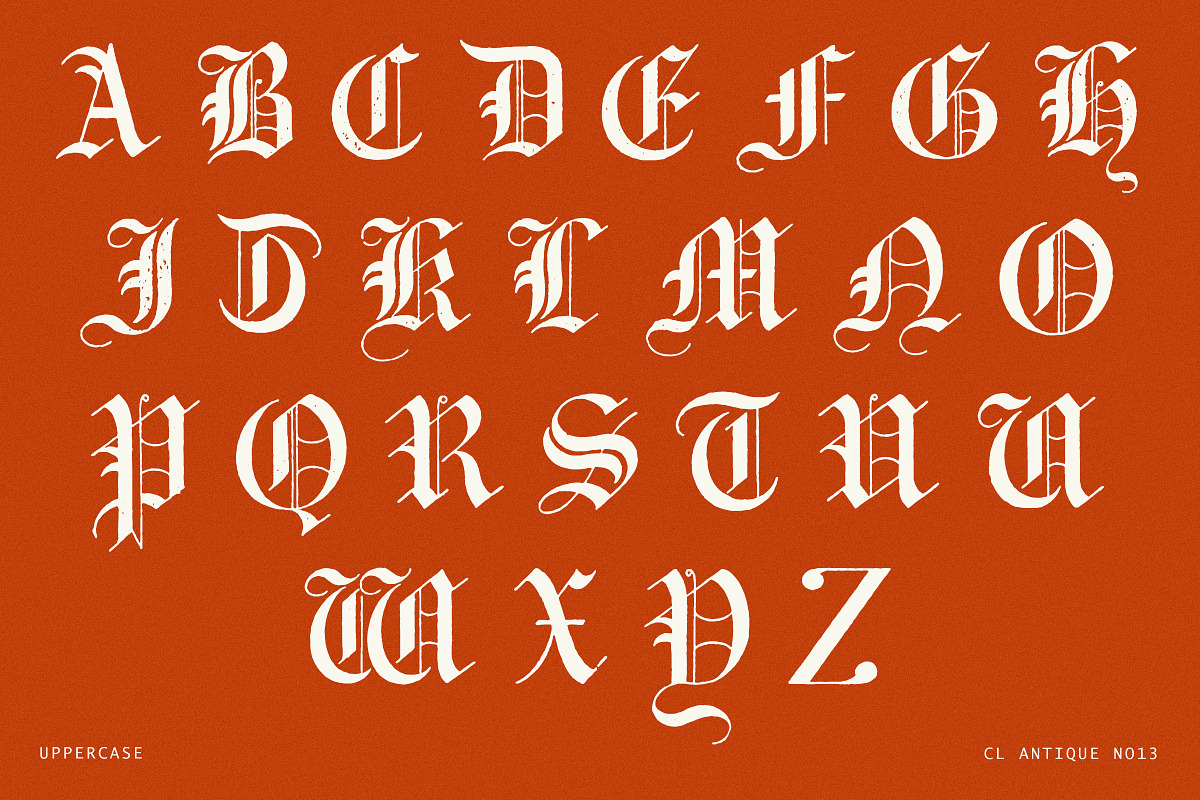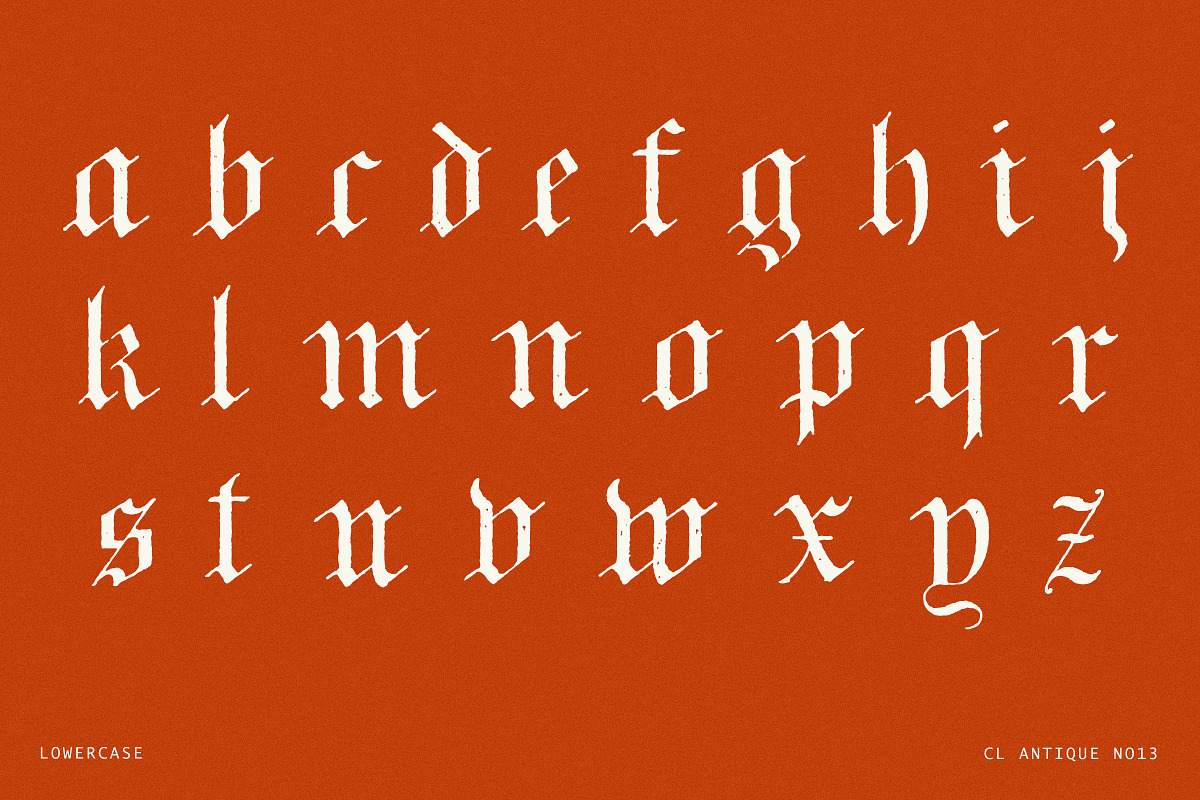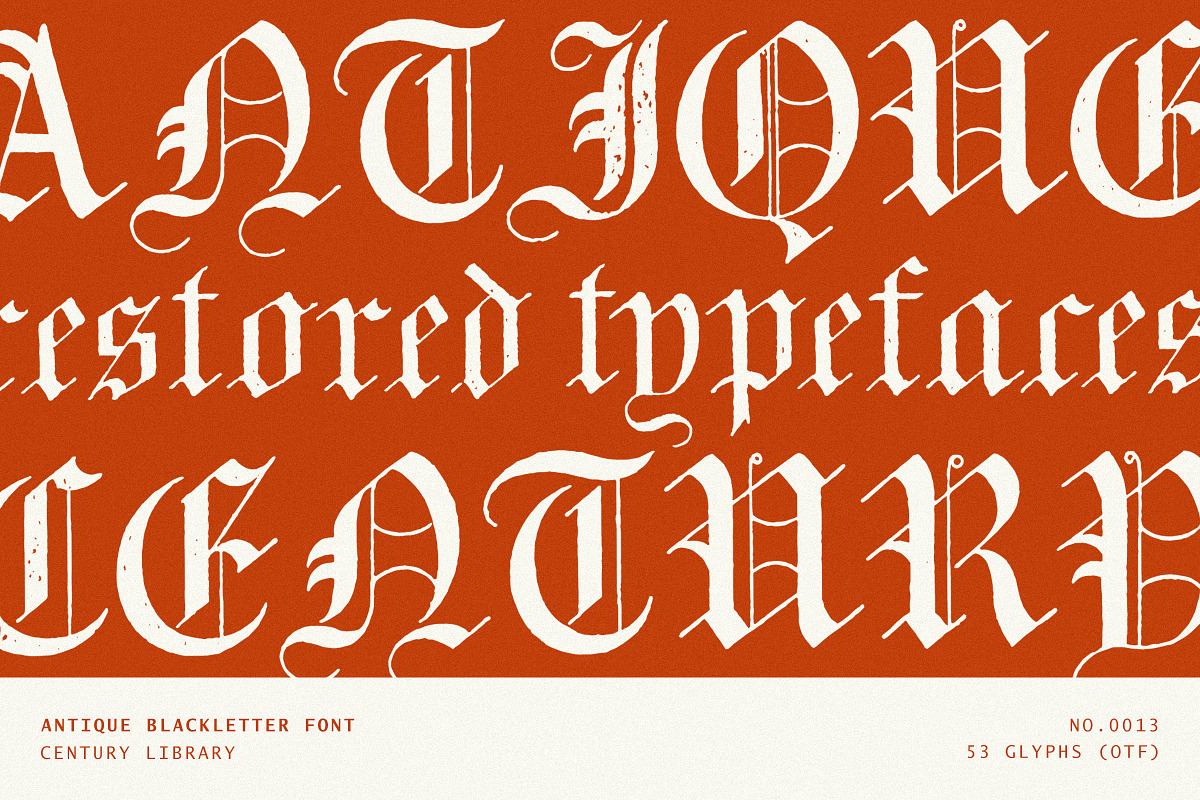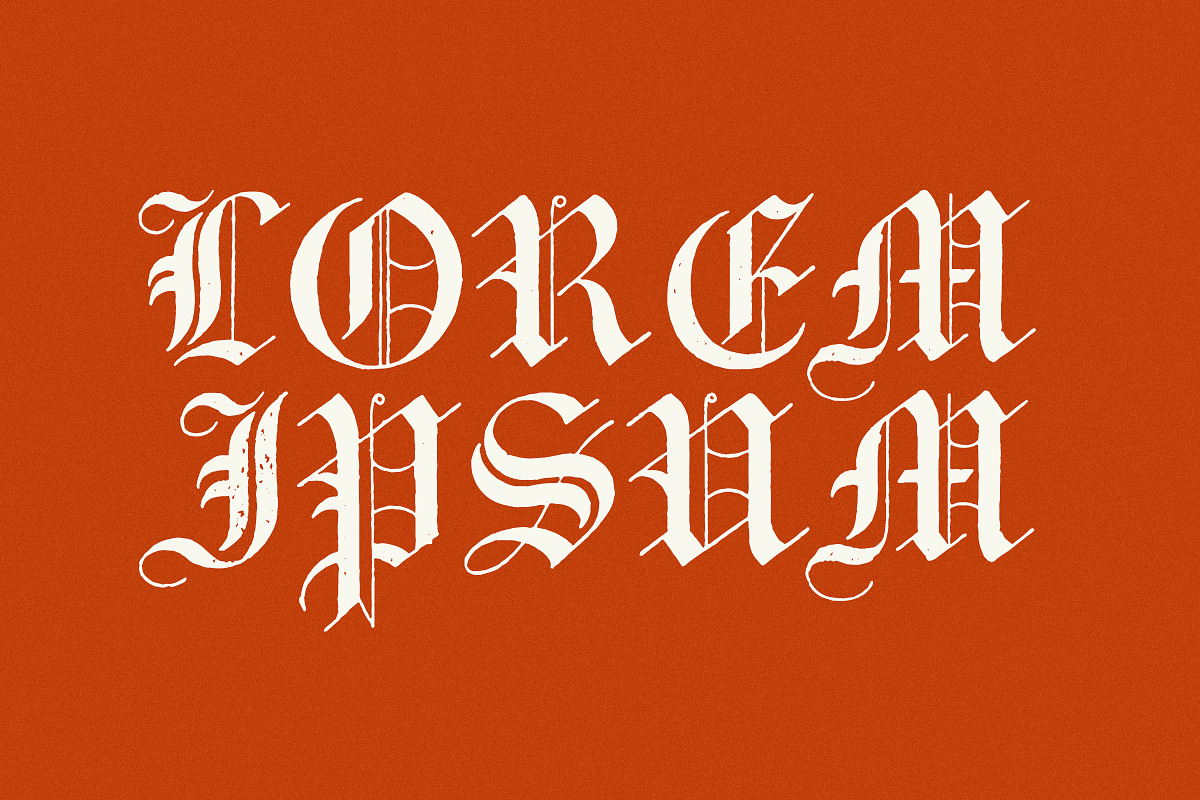
Antique Blackletter Font - No.13
Meet CL Antique No.13 – a classic blackletter font restored from original 19th-century specimens, blending bold gothic forms with subtle vintage texture.
Part of the Century Library collection, this typeface was carefully scanned, cleaned, and transformed into a working font – preserving the strong vertical strokes, sharp angles, and rugged ink texture that define traditional blackletter typography.
No redraws or reinterpretations here. Every glyph stays true to its origins, offering authentic character and historic presence. This font includes full uppercase and lowercase sets, making it a flexible choice for modern and vintage-inspired designs alike.